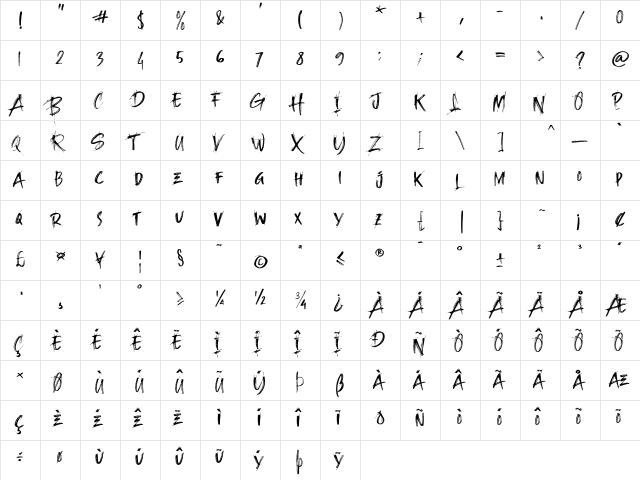
Whiplash Regular
| Designer | Muhammad Ridha Agusni |
Design Context for Whiplash Typeface
Whiplash is a composed and adaptable typeface that performs quietly and consistently across a wide range of design contexts.